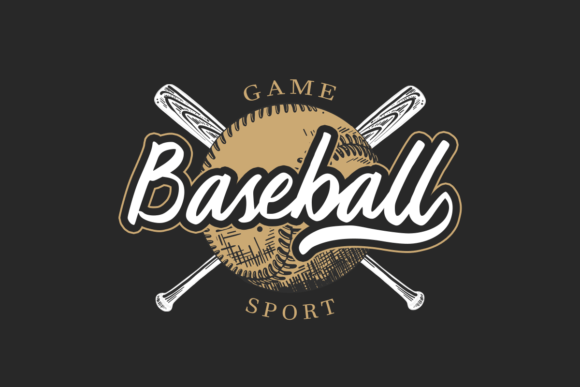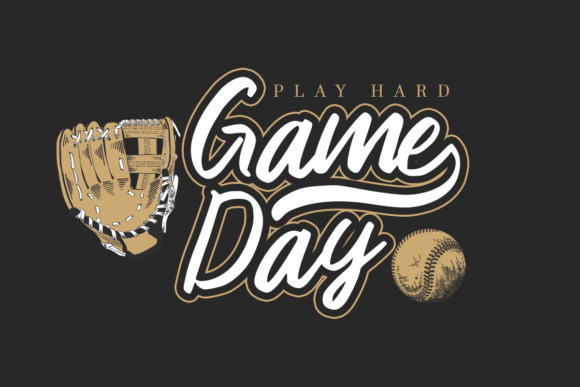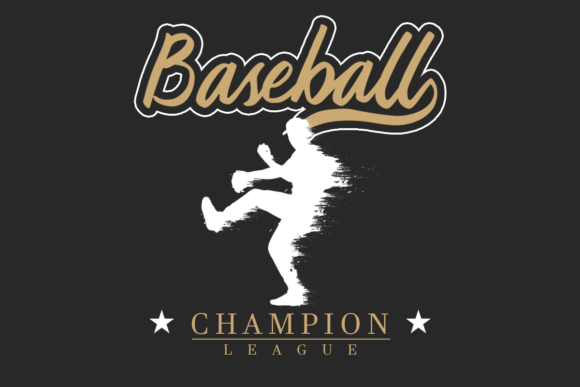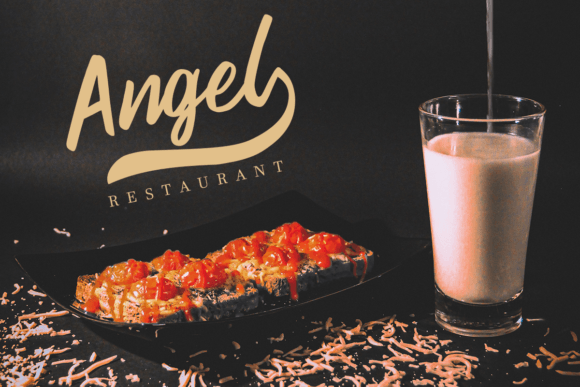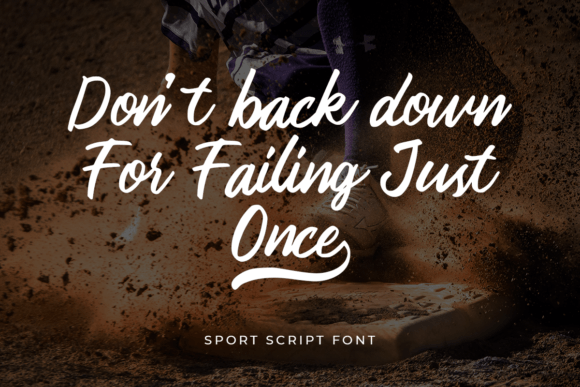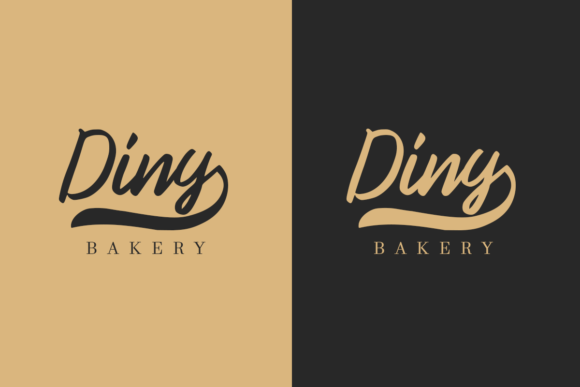
Introducing Goball – Sport Script Font
In the world of design, fonts play a crucial role in conveying the message and tone of a project. For designers and crafters looking to create dynamic and stylish designs that capture the energy and excitement of sports, Goball – Sport Script Font is an excellent choice. This unique typeface combines the elegance of a script font with the boldness of a sports font, making it perfect for a wide range of applications.
What is Goball Font?
Goball Font is a sport script font that boasts bold strokes and sweeping curves, giving it a distinctive look that is both modern and stylish. Its unique design makes it an excellent choice for creating designs that require a high level of energy and excitement, such as sports branding, posters, flyers, and social media graphics.
Key Features of Goball Font
- Unique Blend of Elegance and Boldness: Goball Font combines the elegance of a script font with the boldness of a sports font, creating a look that is both dynamic and stylish.
- Bold Strokes and Sweeping Curves: The font features bold strokes and sweeping curves that give it a distinctive look and help it stand out from other fonts.
- High Versatility: Goball Font is perfect for a wide range of applications, including sports branding, posters, flyers, social media graphics, and more.
Why Choose Goball Font?
There are many reasons why designers and crafters should choose Goball Font for their projects. Here are a few:
- Captures Energy and Excitement: Goball Font is designed to capture the energy and excitement of sports, making it perfect for creating designs that require a high level of dynamism.
- Stand Out from the Crowd: The font’s unique design helps it stand out from other fonts, ensuring that your designs grab the attention of your audience.
- Perfect for Sports Branding: Goball Font is an excellent choice for sports branding, including logos, jerseys, and other sports-related designs.
- Easy to Read: Despite its bold design, Goball Font is easy to read, making it perfect for creating designs that require a high level of legibility.
Tips and Tricks for Using Goball Font
Here are a few tips and tricks for using Goball Font:
- Use it for Headlines: Goball Font is perfect for creating bold and eye-catching headlines that grab the attention of your audience.
- Pair it with Other Fonts: You can pair Goball Font with other fonts to create a unique and stylish design.
- Use it for Sports Branding: Goball Font is an excellent choice for sports branding, including logos, jerseys, and other sports-related designs.
In conclusion, Goball – Sport Script Font is an excellent choice for designers and crafters looking to create dynamic and stylish designs that capture the energy and excitement of sports. Its unique blend of elegance and boldness, combined with its bold strokes and sweeping curves, make it perfect for a wide range of applications. With its ease of use and high versatility, Goball Font is sure to become a favorite among designers and crafters.